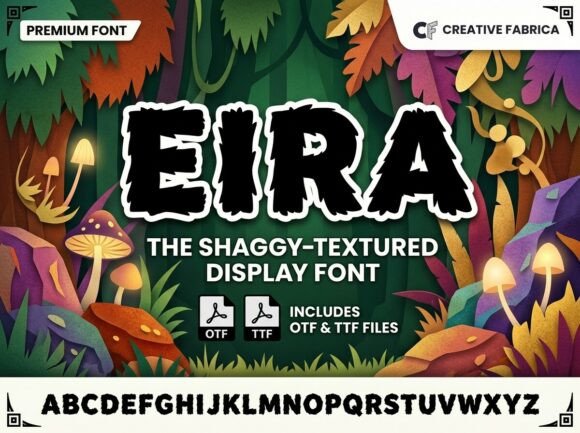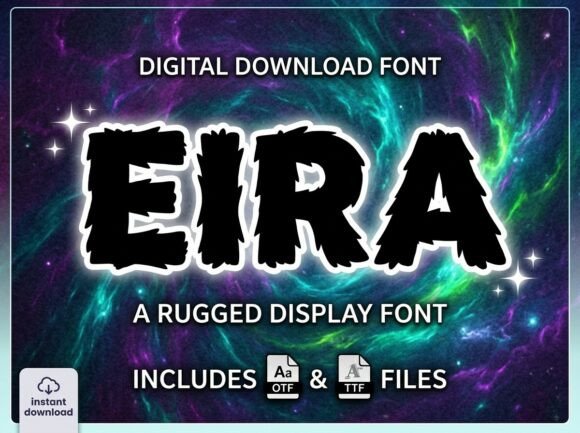
Unleash the Wild Spirit of the North with Eira Font
Are you looking for a typeface that embodies the raw energy and mythical allure of the great outdoors? Look no further than Eira, a heavy display font that captures the essence of ancient folklore creatures and modern winter sports branding. With its unique blend of massive, blocky letterforms and rhythmic, hand-drawn fur textures, Eira is the perfect choice for designers and crafters seeking to add a touch of wild sophistication to their projects.
The Inspiration Behind Eira
Eira is more than just a font – it’s an experience. Inspired by the rugged landscapes and mythical creatures of the north, Eira’s design team sought to create a typeface that would evoke the same sense of awe and wonder as a snowy mountain peak or a legendary beast. The result is a font that is both heavy and agile, with a structural weight that commands attention and a raw personality that refuses to be ignored.
Unique Characteristics of Eira
So what sets Eira apart from other display fonts on the market? For starters, its massive, blocky letterforms are uniquely characterized by rhythmic, hand-drawn fur textures that give each character a tactile, organic feel. The jagged, shaggy edges that define Eira’s design add a touch of roughness and tactility, bridging the gap between ancient folklore creatures and modern winter sports branding.
Perfect for Bold and Fearless Projects
Eira is the premier choice for designers and crafters seeking to make a bold statement with their projects. Whether you’re working on an independent ski resort identity, a boutique monster-themed apparel label, a high-impact adventure game title, or an eye-catching social media header, Eira has the perfect combination of heft and personality to get your message noticed. Its versatility and range make it an ideal choice for a wide range of applications, from branding and advertising to packaging and merchandise.
Design and Crafting Applications for Eira
Eira’s unique characteristics make it an excellent choice for a variety of design and crafting applications, including:
- Ski Resort Identities: Eira’s rugged, snow-inspired design makes it a natural fit for ski resort branding, adding a touch of wild sophistication to logos, signage, and marketing materials.
- Monster-Themed Apparel: Eira’s mythical, folklore-inspired aesthetic makes it a perfect match for monster-themed apparel labels, adding a bold and fearless edge to t-shirts, hoodies, and other merchandise.
- Adventure Game Titles: Eira’s heavy, impactful design makes it an excellent choice for high-impact adventure game titles, adding a sense of excitement and danger to game packaging and marketing materials.
- Social Media Headers: Eira’s bold, eye-catching design makes it a great choice for social media headers, helping you stand out in a crowded online landscape and adding a touch of personality to your online presence.
Tips for Getting the Most Out of Eira
To get the most out of Eira, try the following tips:
- Experiment with Color: Eira’s bold, graphic design looks great in a variety of colors, from deep blues and grays to bold brights and metallics.
- Play with Texture: Eira’s hand-drawn fur textures add a tactile, organic feel to your designs – experiment with different textures and patterns to add depth and interest.
- Mix and Match: Eira’s versatility makes it easy to pair with other fonts and design elements – try mixing and matching to create a unique and eye-catching look.
| Font Name | Eira Font |
| Author | clipartguru |
Eira is more than just a font – it’s a statement. With its unique blend of massive, blocky letterforms and rhythmic, hand-drawn fur textures, Eira is the perfect choice for designers and crafters seeking to add a touch of wild sophistication to their projects. Whether you’re working on a ski resort identity, a monster-themed apparel label, or an adventure game title, Eira has the perfect combination of heft and personality to get your message noticed. So why wait? Unleash the wild spirit of the north with Eira font today!